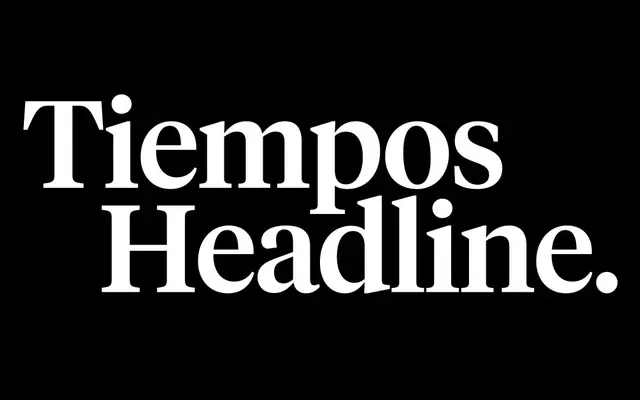
Tiempos Headline
Klim Type Foundry · Kris Sowersby · 2010
The headline cut of Tiempos, balancing practicality and elegance for mastheads, news headlines and editorial display.
The headline optical size in the Tiempos system by Kris Sowersby, drawn from the Plantin and Times lineage that Tiempos Text reworks for body. Six weights from Light to Black run with italics, with a variable weight axis supplied with the full family. Quietly become a default for news and editorial mastheads (notably across major publications) when the brief asks for authority without rhetoric, and pairs cleanly with Söhne or Untitled Sans.
Klim classifies it as Modern: Transitional/Realist; the headline optical size in the Tiempos system, designed for larger sizes and striking a balance between practicality and elegance.